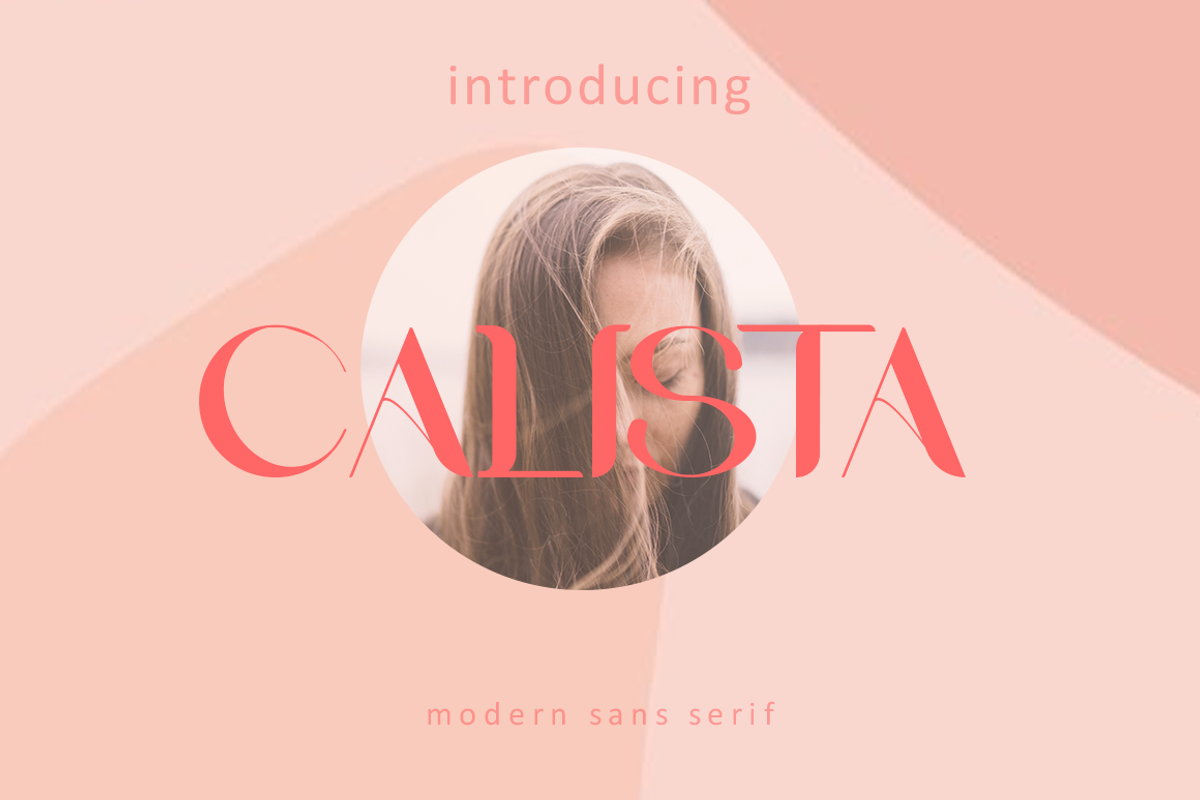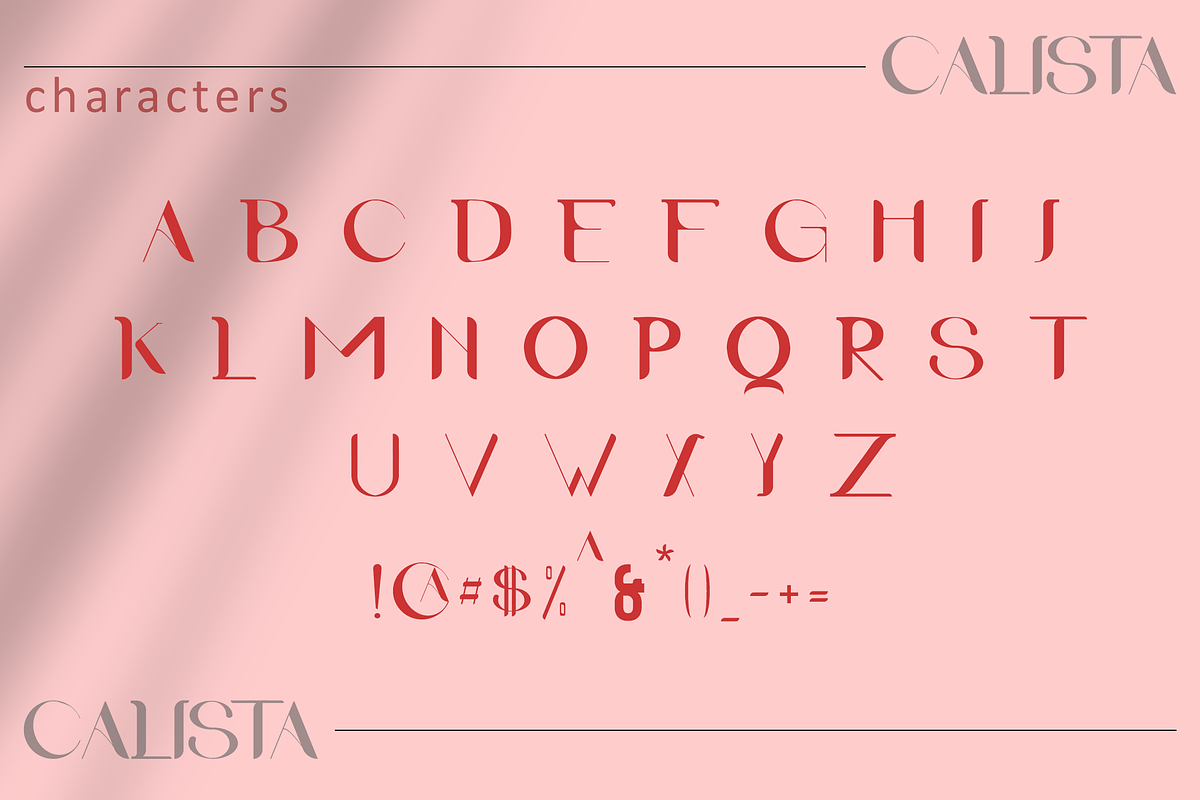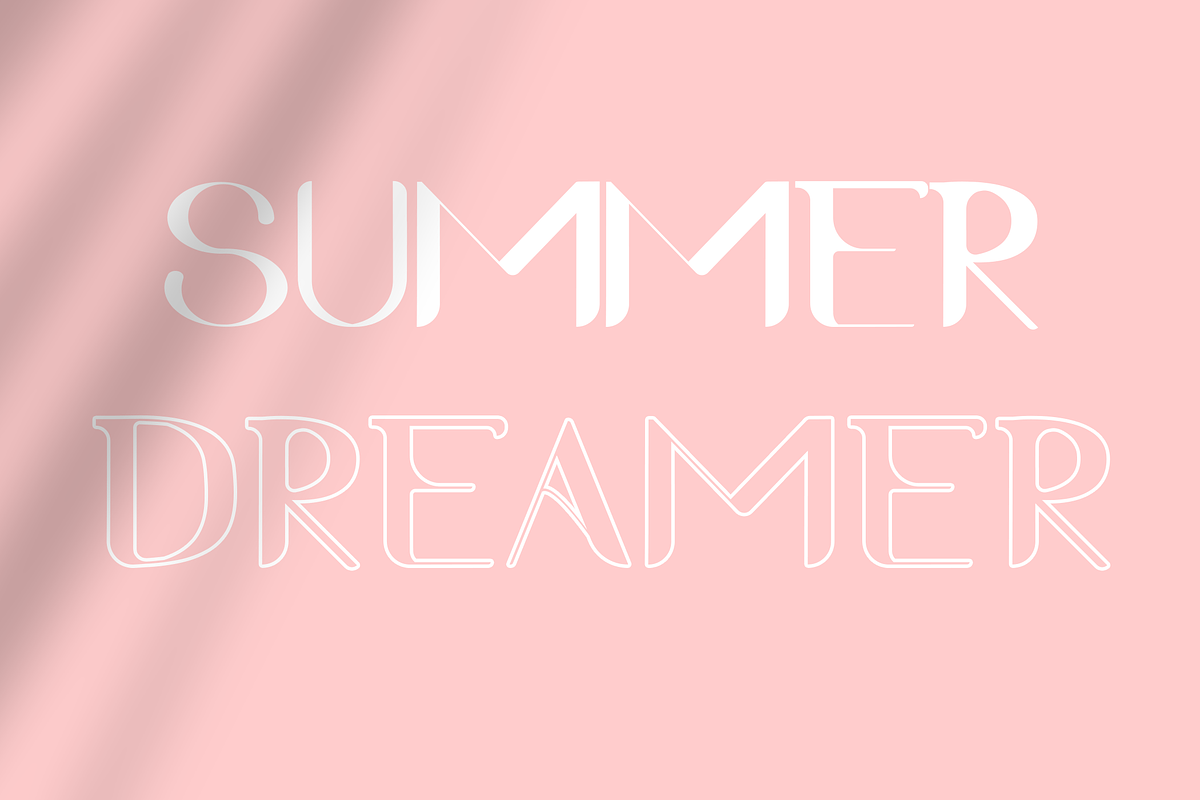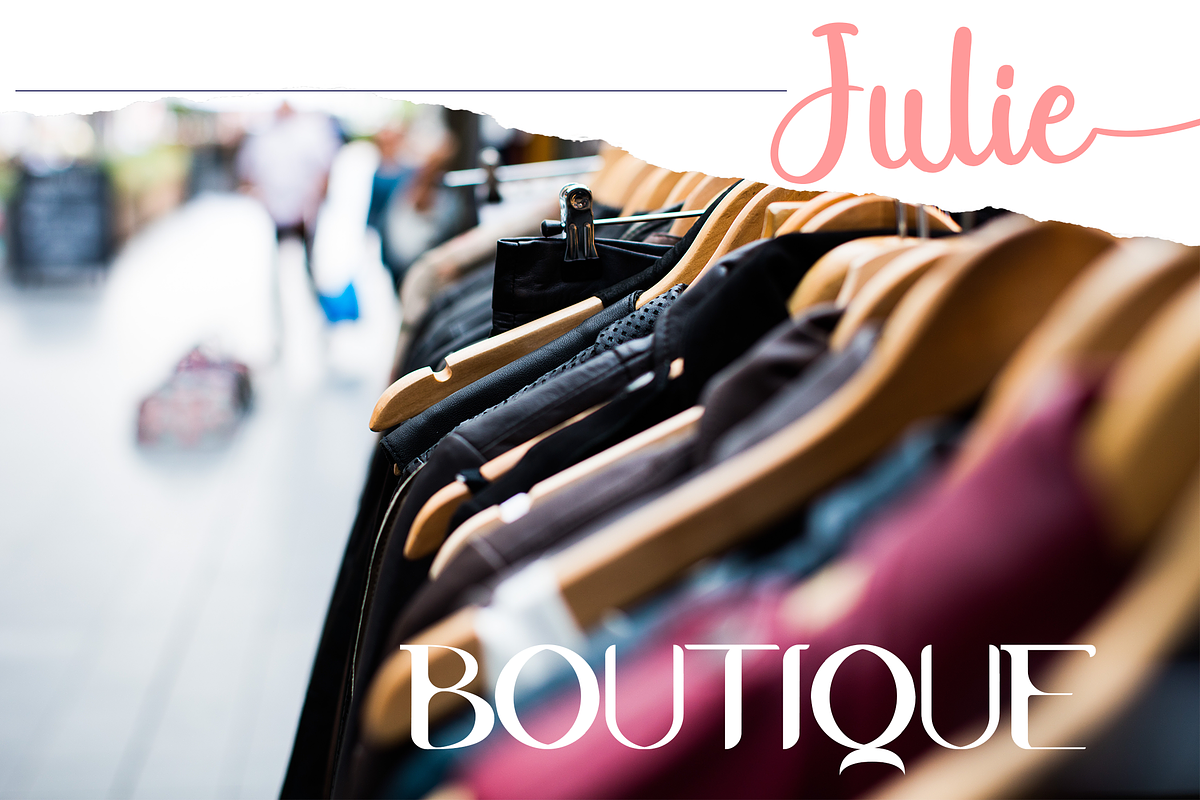
Calista Sans Font
Introducing Calista Sans Elegant Typeface
Calista is a trendy and cool serif font. No matter the topic, this font will be an incredible asset to your fonts’ library, as it has the potential to elevate any creation. It's a very versatile font that works great in large and small sizes. Calista Sans is perfect for branding projects, Logo design, Clothing Branding, product packaging, magazine headers, or simply as a stylish text overlay to any background image.